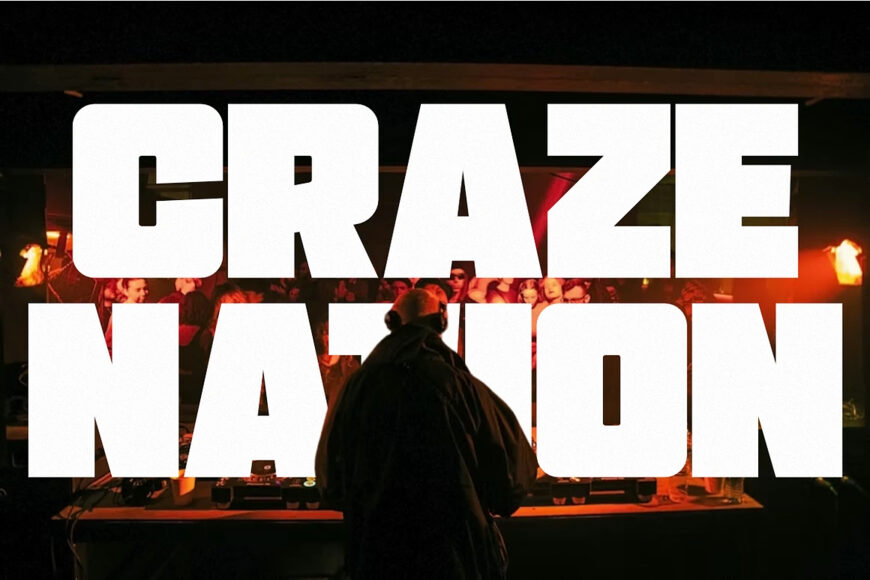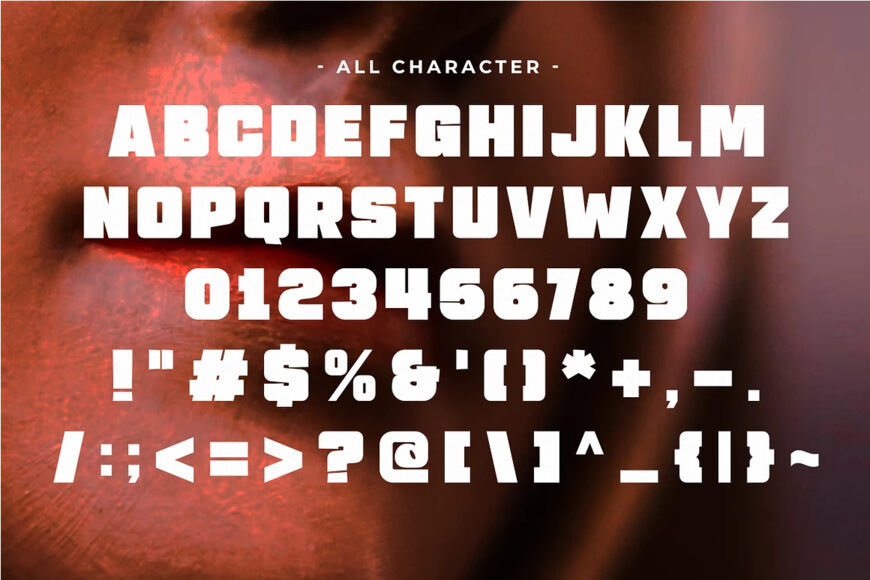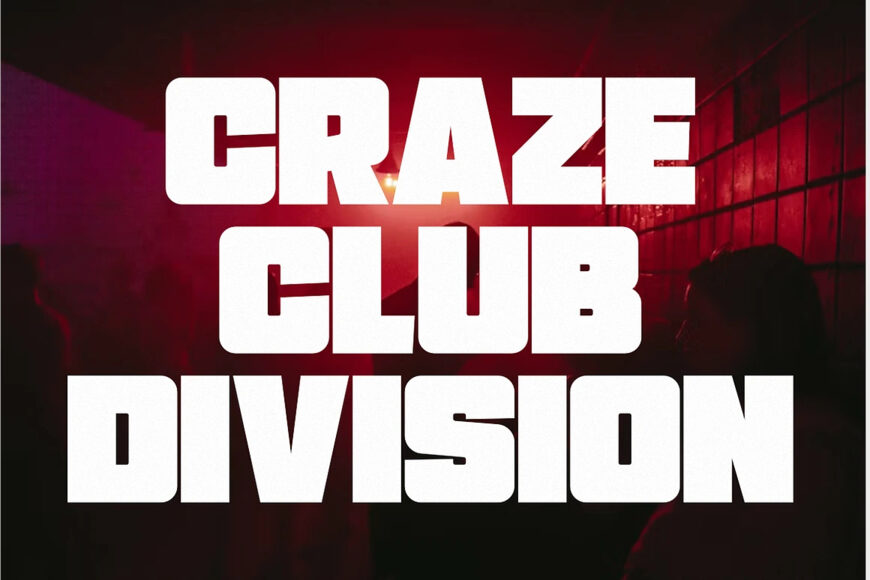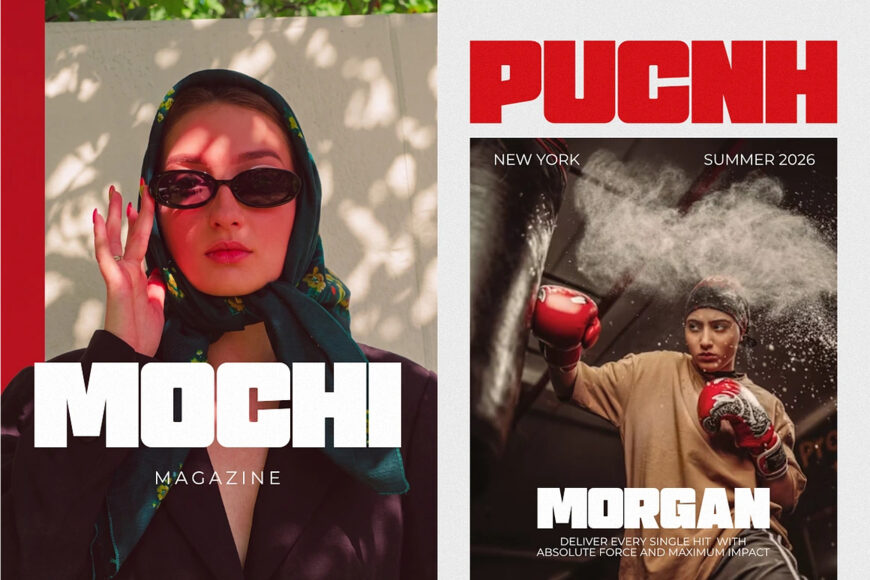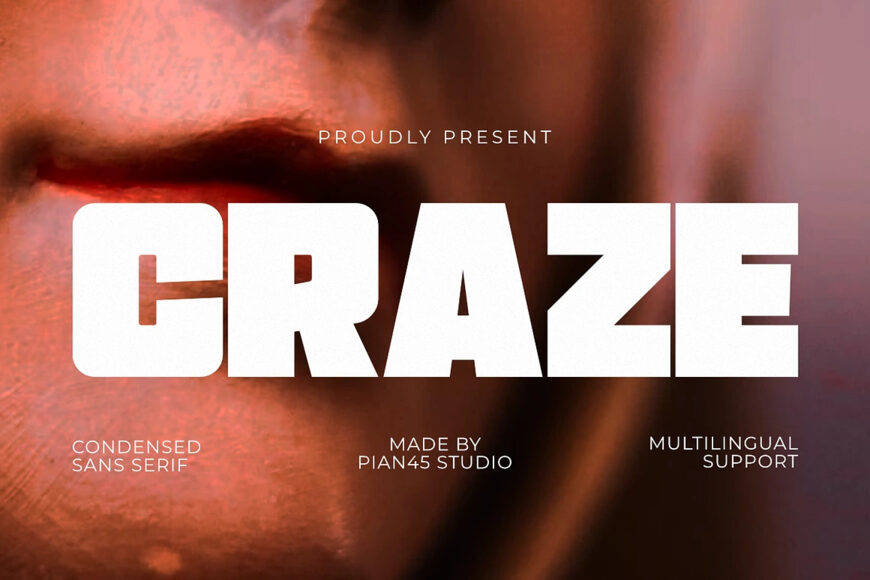
Craze Font
Craze is a bold, energetic, and high-impact Modern Condensed Sans Serif font built to capture attention instantly. Featuring ultra-thick geometric blocks, clean minimalist angles, and a powerful all-caps structure, this typeface is engineered for modern branding, streetwear fashion logos, high-octane sports graphics, and cinematic title layouts.
Its space-saving yet massive blocky design guarantees outstanding readability, making it the ultimate tool for striking headlines, event posters, apparel design, custom merchandise, and digital marketing banners that demand a commanding, trend-setting identity.